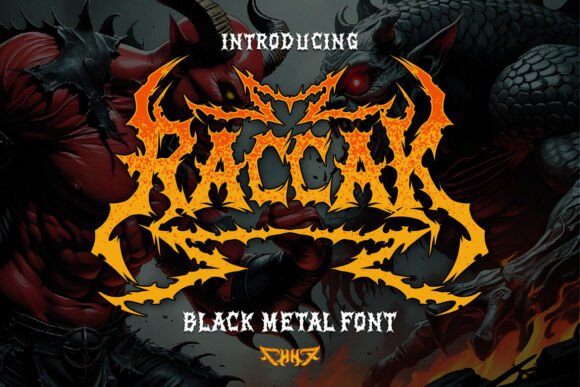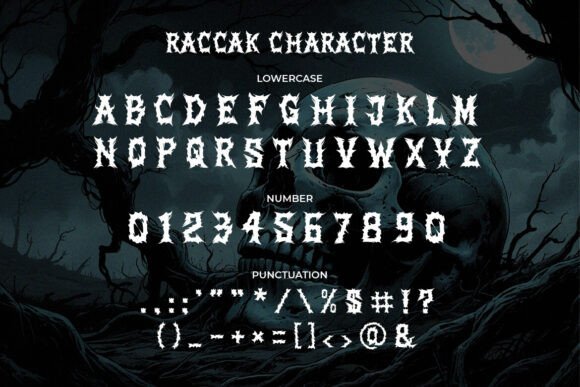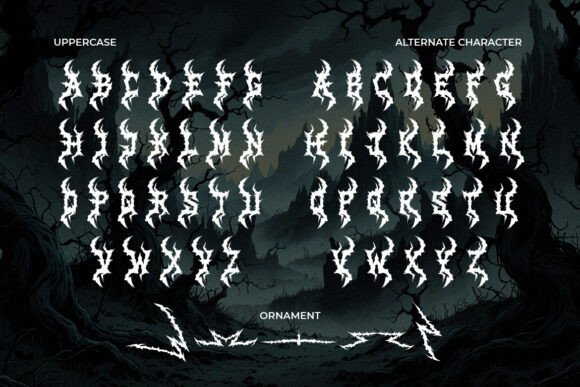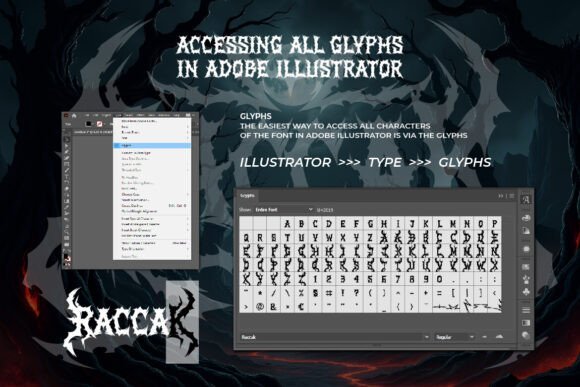
Raccak Font: Unleash a Savage Display Font for Metal Logos & Horror Designs
About the Raccak Font
The wait is over! The incredible Raccak Font is now available for your design toolkit. Raccak Font is a savage typographic force forged in the depths of darkness. With razor-edged letterforms, chaotic strokes, and an untamed energy pulsing through every glyph, Raccak is built for extreme metal bands, horror visuals, underground streetwear, and any design that demands total annihilation of the norm. Inspired by flame, fury, and rebellion, this font doesn’t whisper—it roars. Raccak gives designers the power to unleash raw visual destruction, letter by brutal letter.
Raccak excels in large-scale applications such as headlines, posters, and logotypes for brands that project rebellion and power. Its aggressive forms are ideal for packaging design within the extreme sports, heavy metal music, or dark fantasy genres. Avoid using Raccak for body text or UI elements; its highly stylized forms impair readability at smaller sizes.
Pairing Raccak effectively requires a contrasting typeface to temper its intensity. A clean, geometric sans-serif like Futura or a minimalist serif like Garamond will provide a strong counterpoint. For a more cohesive and slightly less jarring look, consider pairing it with a similarly bold but less chaotic typeface with a similar x-height.
Raccak’s personality is undeniably aggressive and rebellious, lending itself best to projects aiming for a raw, visceral impact. It’s a powerful tool for conveying a sense of untamed energy, danger, or defiance. Use sparingly to maximize its effect.
Raccak Font Usage Examples
Raccak Font Example